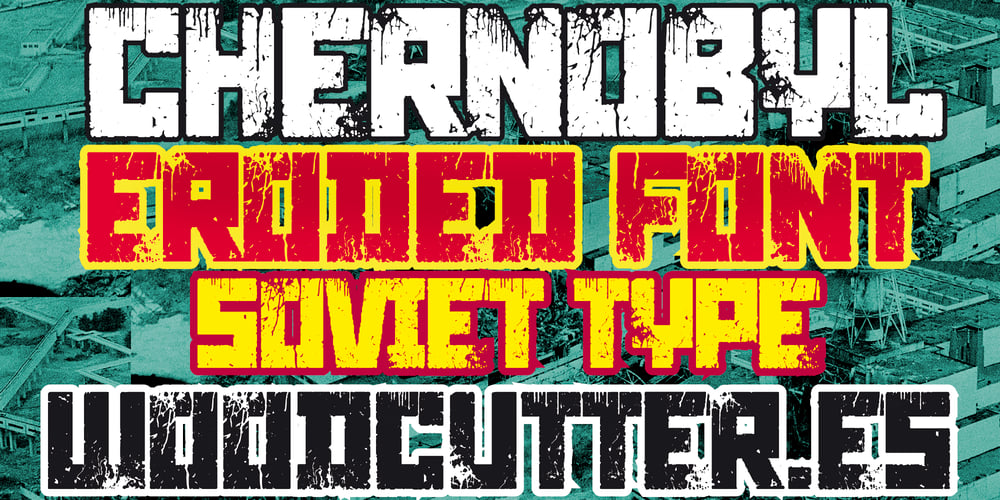
Chernobyl Font Family was designed by Jordi Manero and published by Woodcutter. Chernobyl contains 1 styles and family package options. “Channeling the haunting aftermath of the Chernobyl disaster, ‘Chernobyl’ font embodies the desolation and decay of the Soviet era. Each letter appears shattered and bleeding, as if ravaged by the nuclear explosion’s fallout. With a stark Soviet aesthetic, this font captures the bleakness and tragedy of the catastrophe. Perfect for projects seeking to evoke a sense of darkness and foreboding, from dystopian-themed designs to historical retrospectives. ‘Chernobyl’ font serves as a poignant reminder of the human cost of nuclear disasters, adding a haunting element to your designs.”